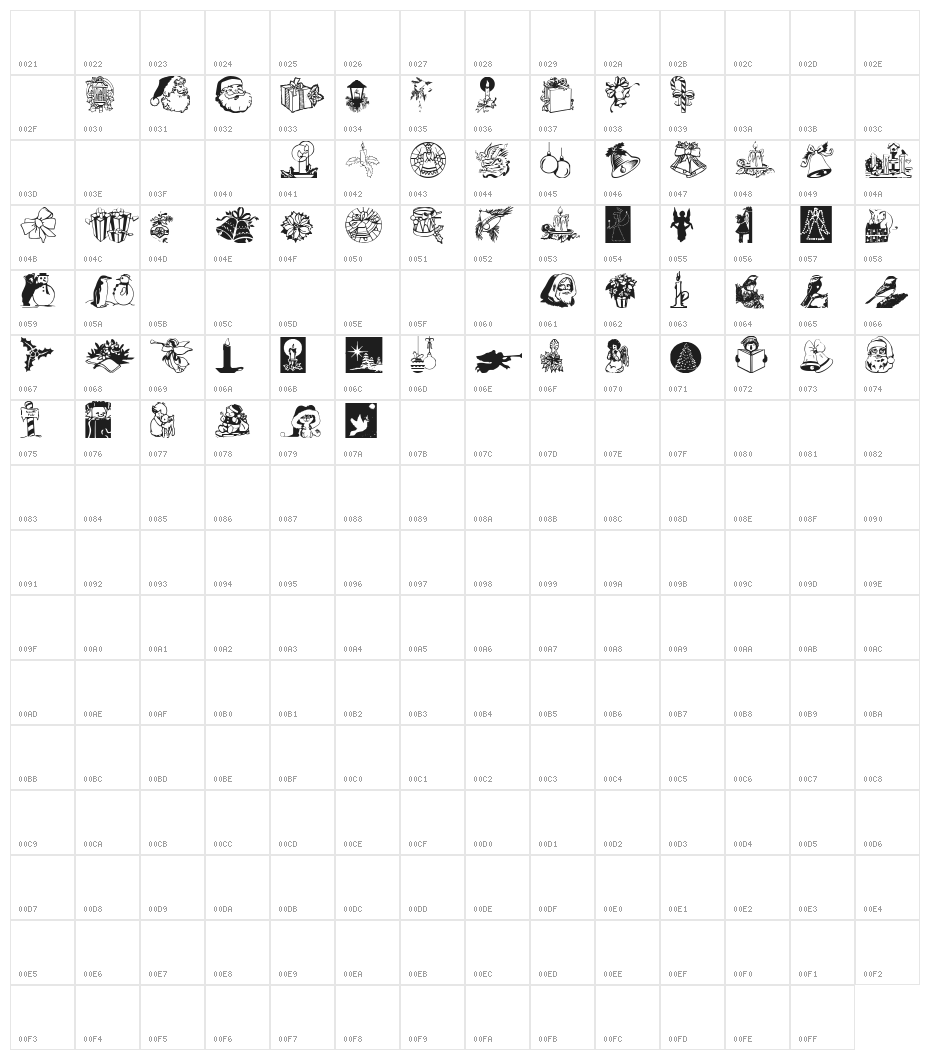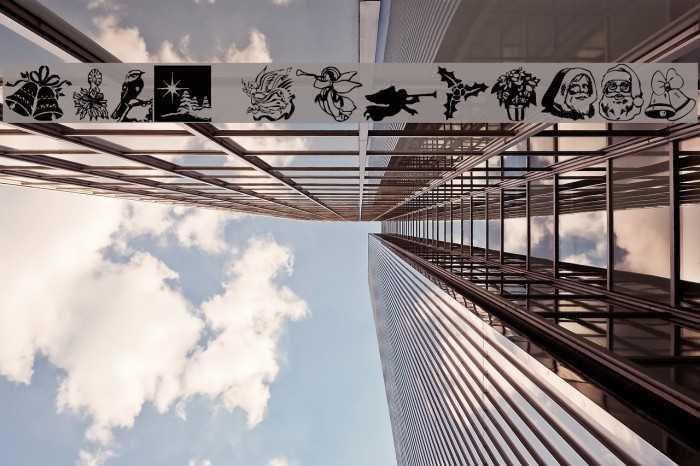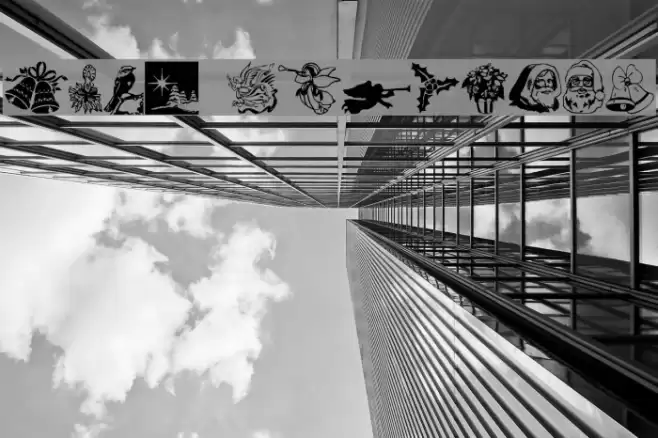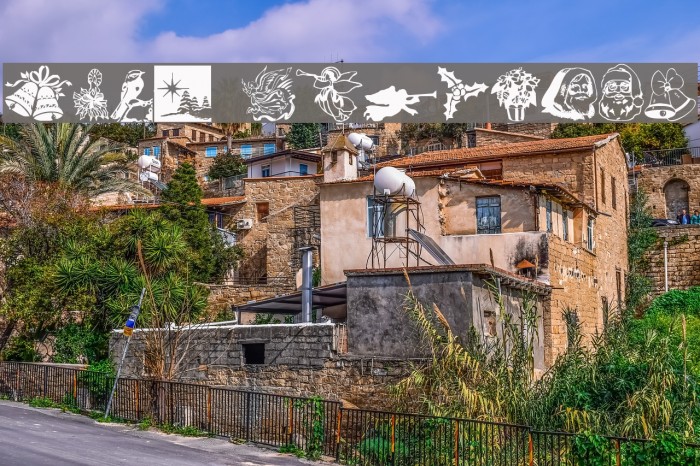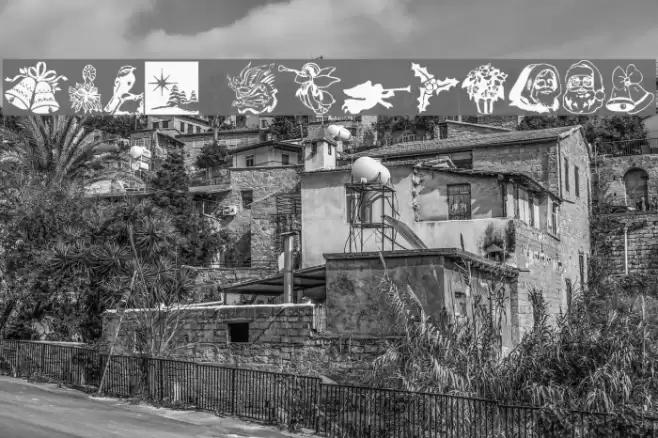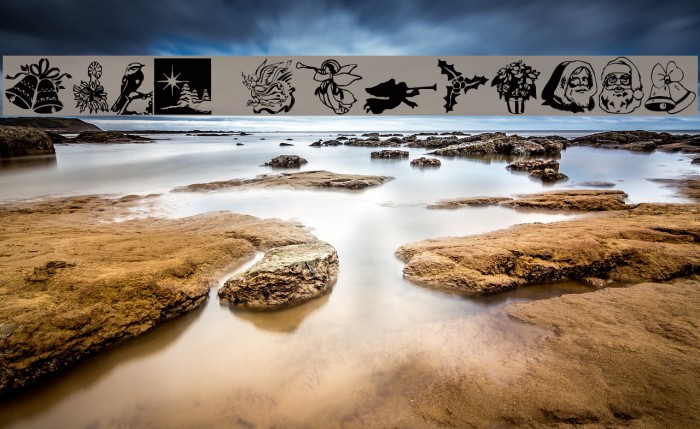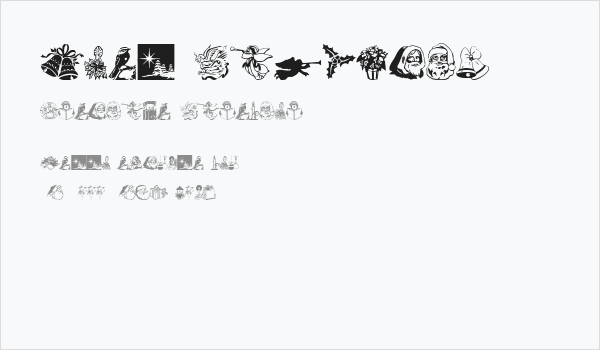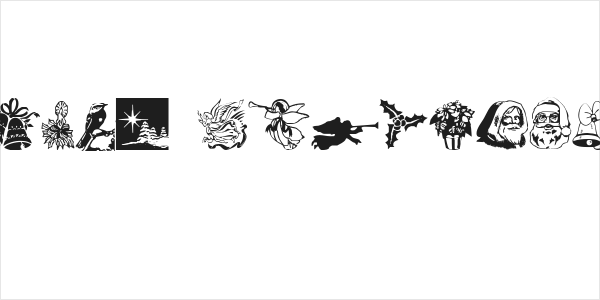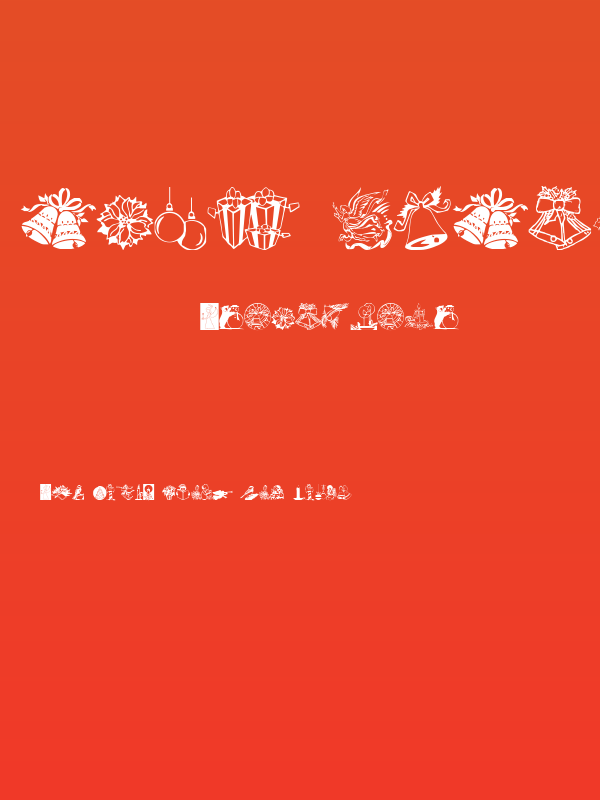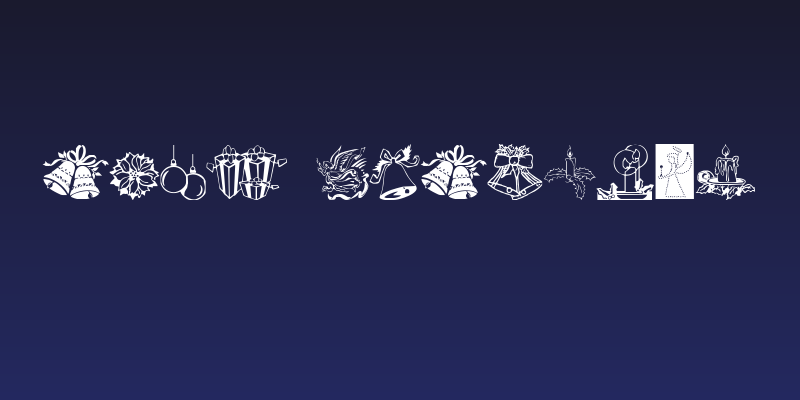
Noel Dingbats Font
Noel Dingbats Description
This collection of dingbats features a festive theme, showcasing a variety of holiday-inspired symbols and illustrations. The designs include traditional Christmas elements such as bells, candles, holly, and Santa Claus, as well as winter motifs like snowflakes and penguins. Each symbol is intricately detailed, capturing the essence of the holiday season with a playful and decorative style. The illustrations are bold and clear, making them suitable for a range of creative projects. These dingbats can add a whimsical touch to holiday cards, invitations, and decorations, providing a charming and nostalgic feel.
| Use Case | Decorative elements for holiday-themed projects. |
| Proposed Projects | Holiday cards, festive invitations, seasonal decorations, gift tags, and scrapbooking. |